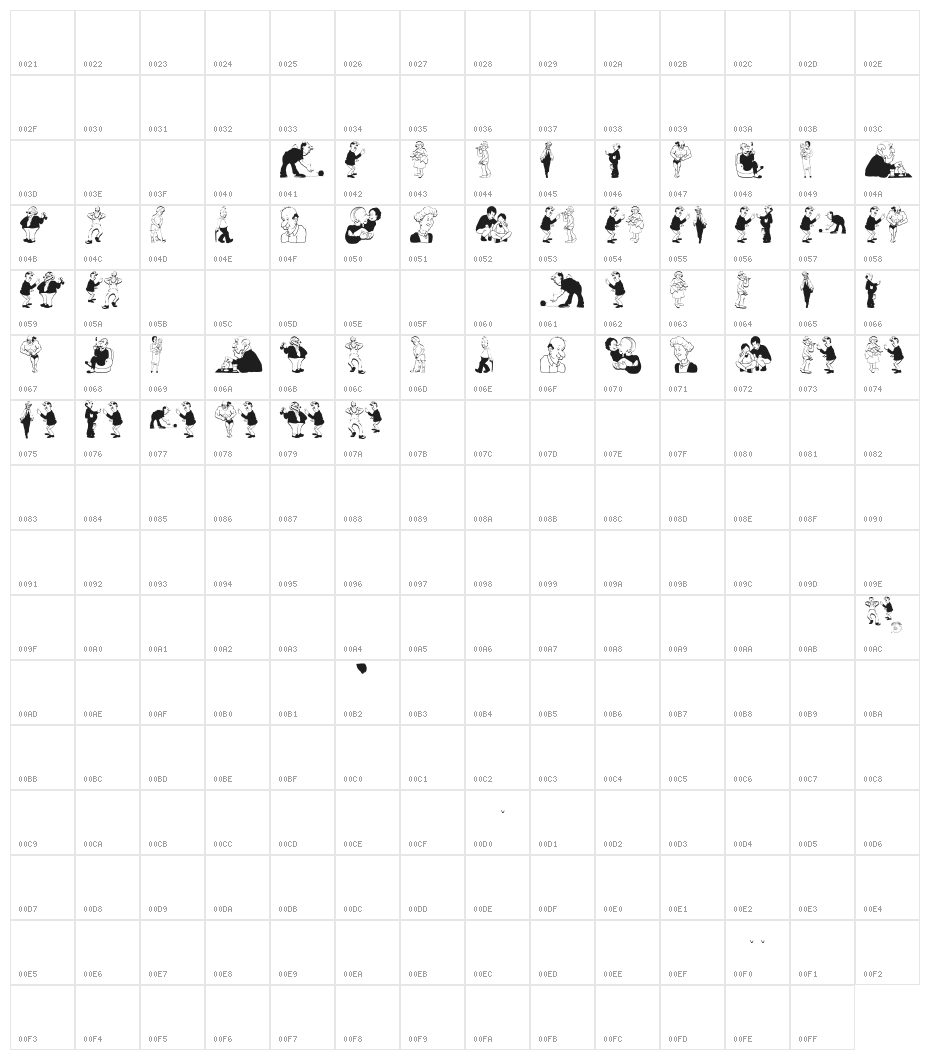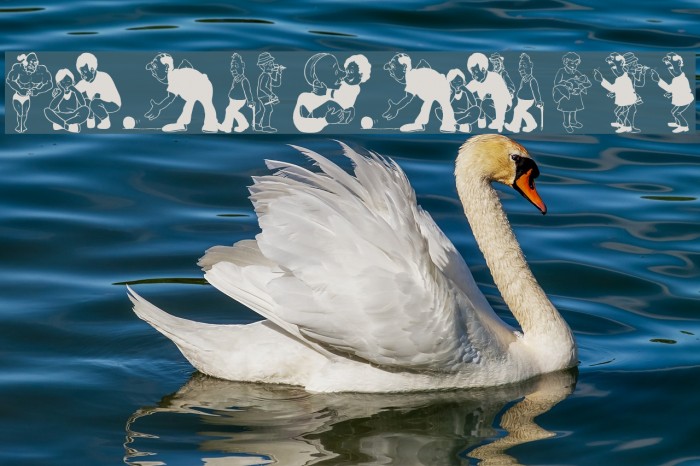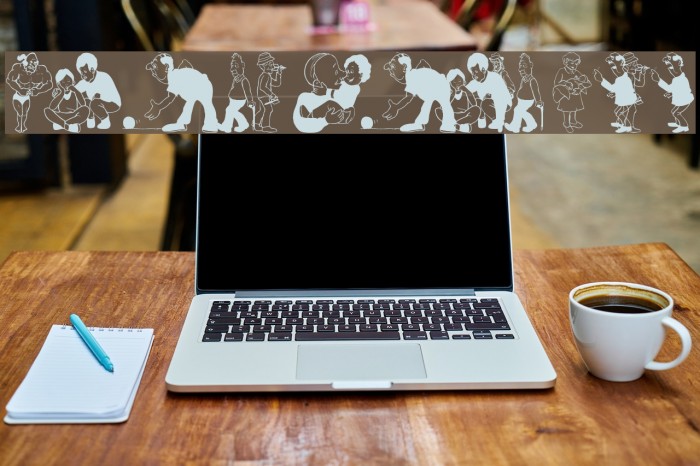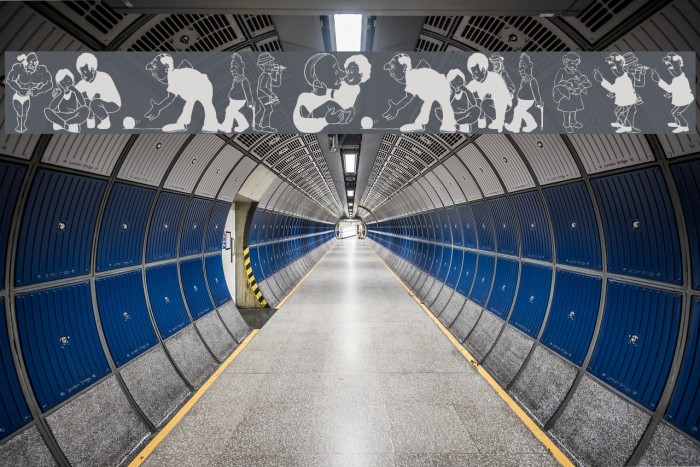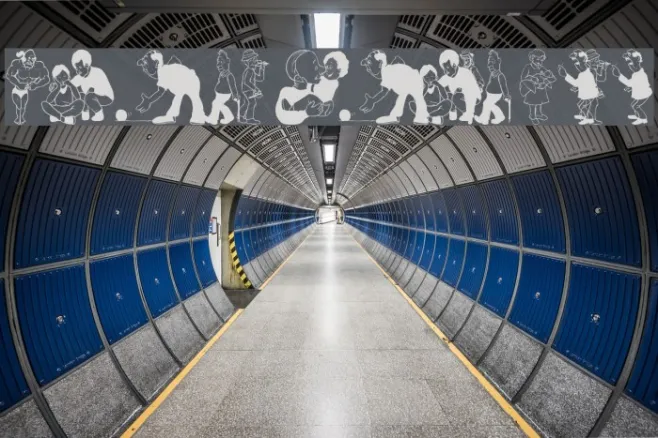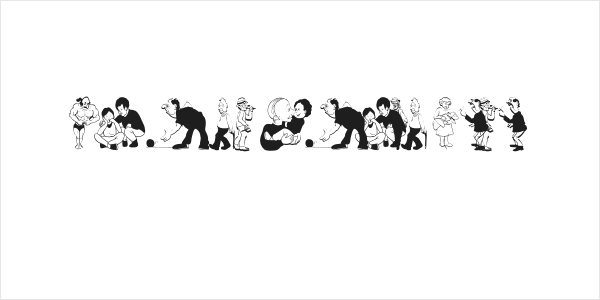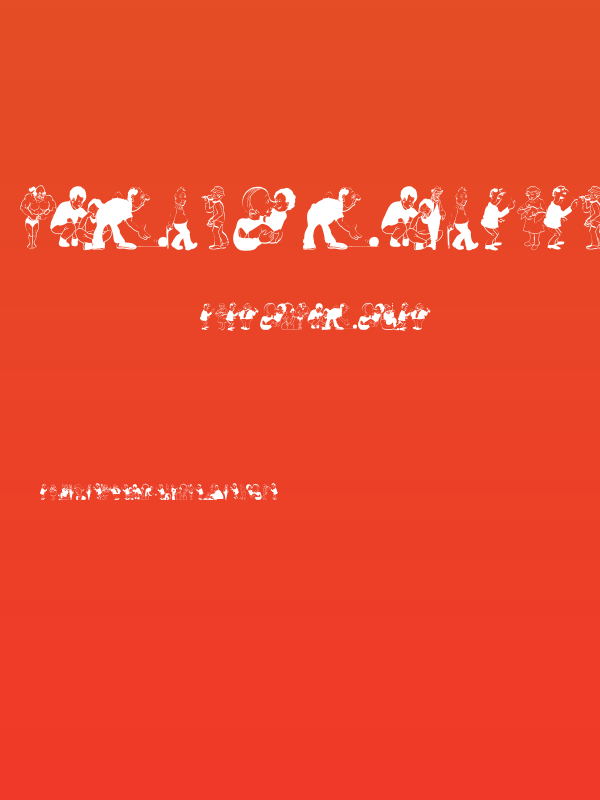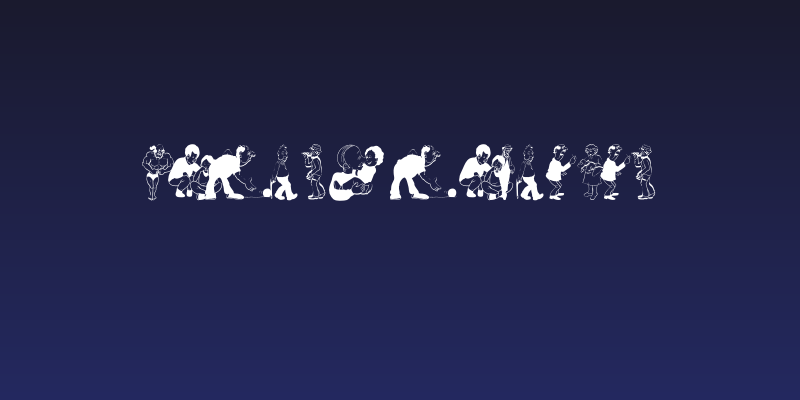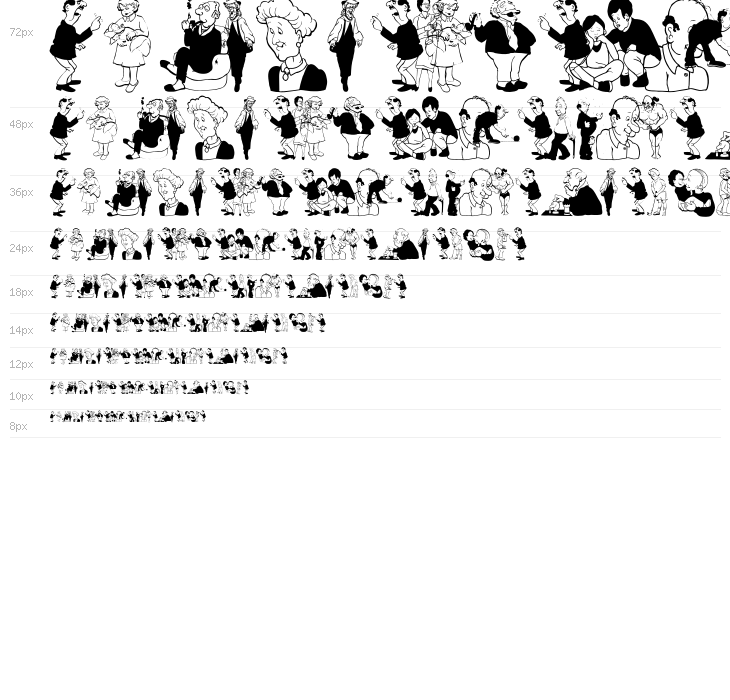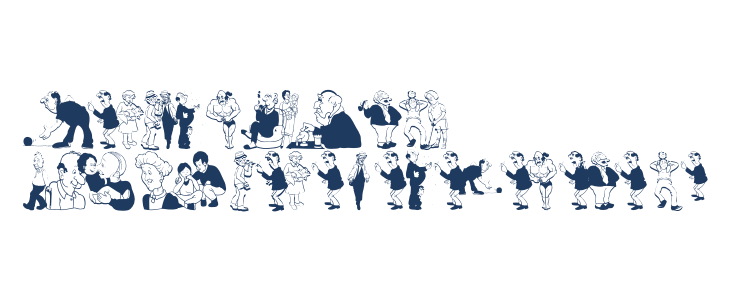
GrandParents Font
GrandParents Description
GRANDPARENTS UPPERCASE
GRANDPARENTS LOWERCASE
GRANDPARENTS OTHER CHARS
| Name | GrandParents |
| Overall Style | Playful, Whimsical, Illustrative |
| Use Case | Logos, Headlines, Themed graphics, ChildrenΓ’β¬β’s content |
| Proposed Projects | ChildrenΓ’β¬β’s books, greeting cards, playful posters, educational materials, themed event invitations. |